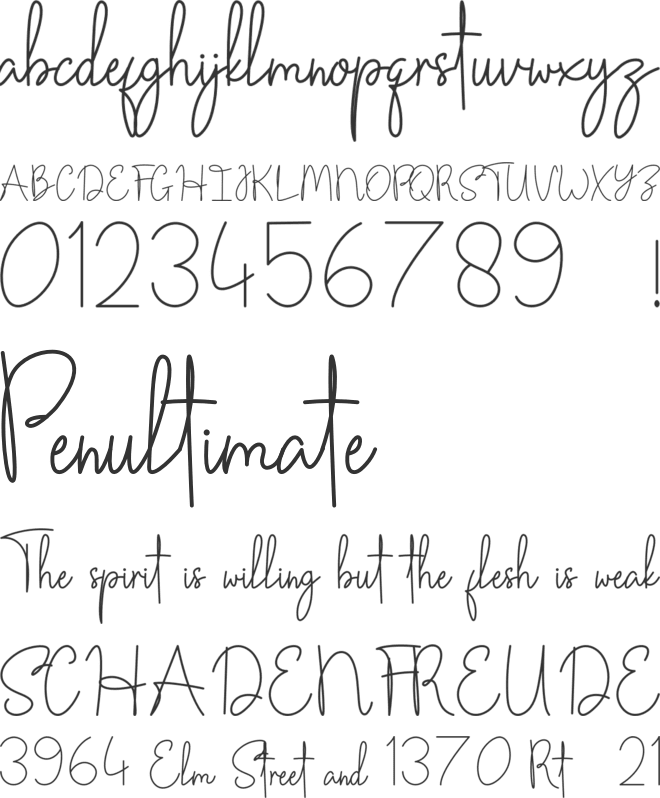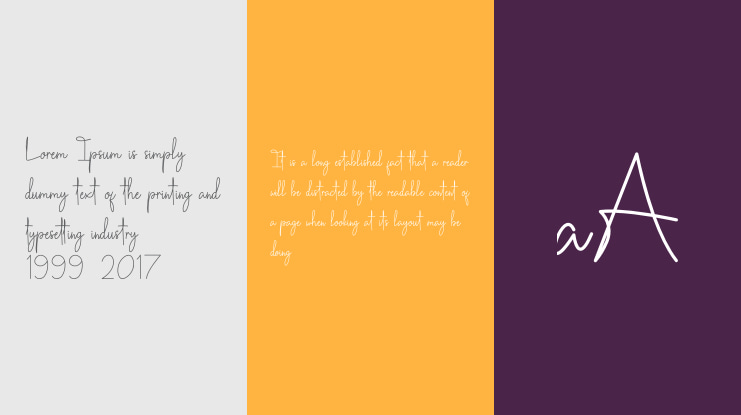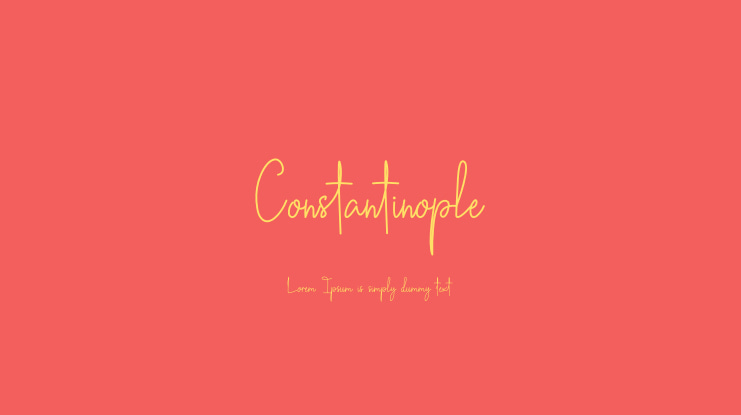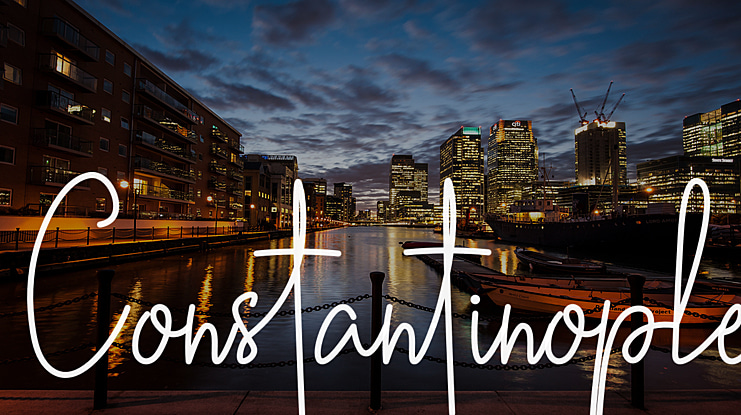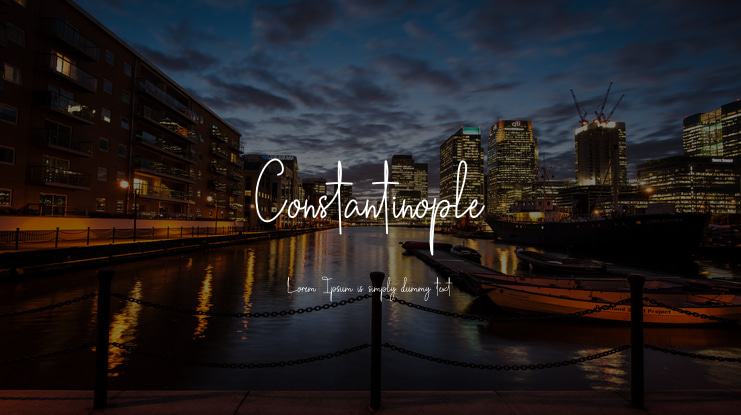
Constantinople Font
Constantinople is a thin lettered script font which has multiple styles. It is suitable for stationery, fashion branding, wedding invitation, signature, and more.